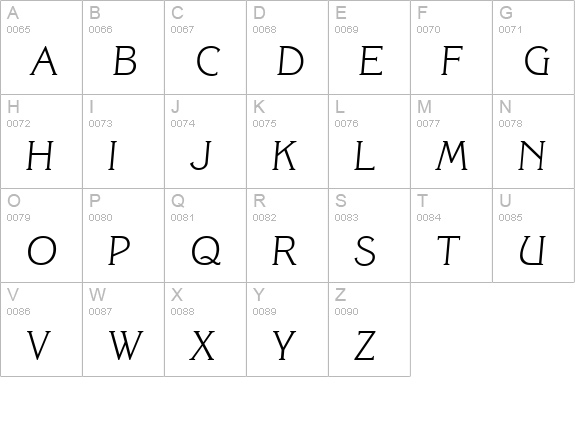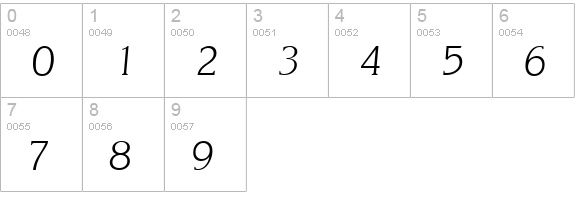
KorinthSerial-Xlight-Italic is a distinctive, italic variant in the KorinthSerial typeface family \xE2\x80\x94 well suited to design and typography projects.
KorinthSerial-Xlight-Italic is a sleek and modern typeface that exudes elegance and sophistication. Its slim and stylish design makes it perfect for adding a touch of class to any project. The italicized letters give a sense of movement and dynamism, making this font ideal for creating eye-catching headlines or attention-grabbing designs. And the best part? KorinthSerial-Xlight-Italic is completely free to download! You can get your hands on this stunning font at FontsMarket.com, where you can easily access and use it for all your creative endeavors. Don't miss out on the opportunity to enhance your designs with this gorgeous typeface that combines style and functionality seamlessly. Download KorinthSerial-Xlight-Italic today and take your projects to the next level!